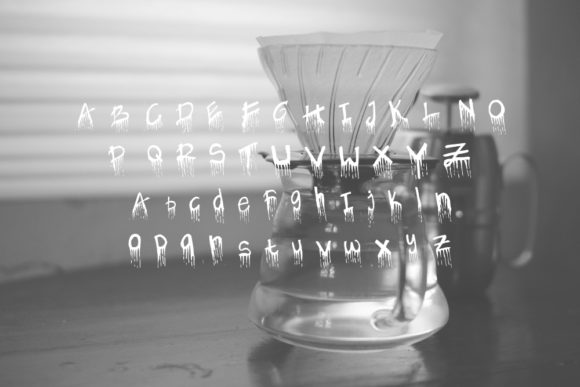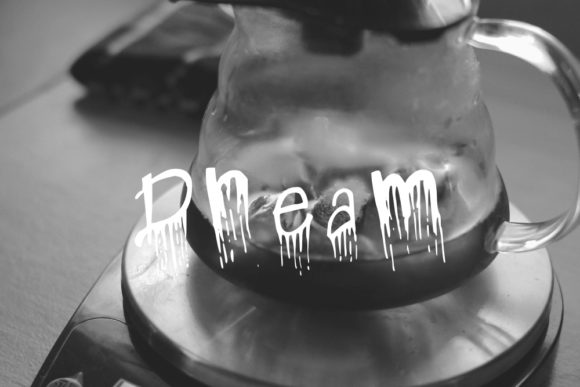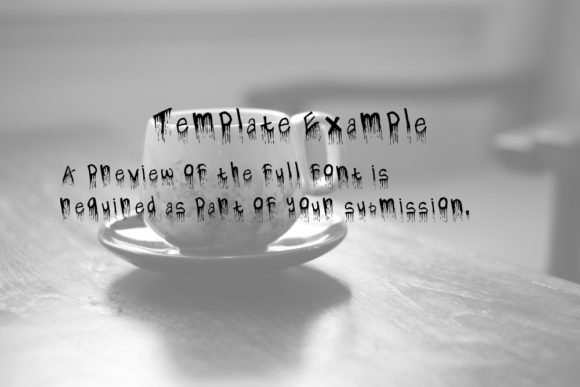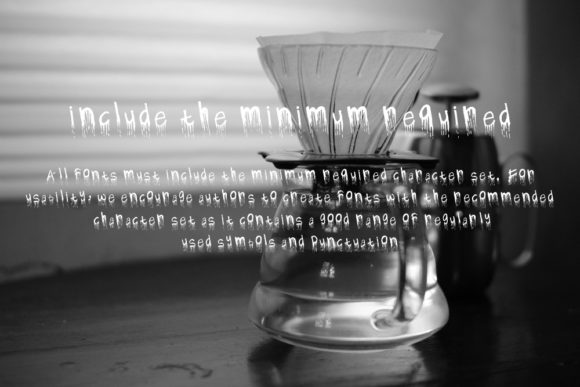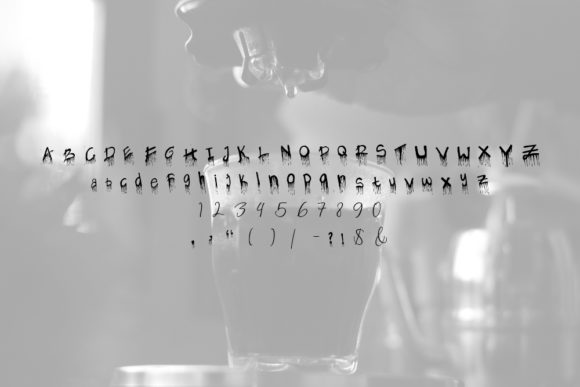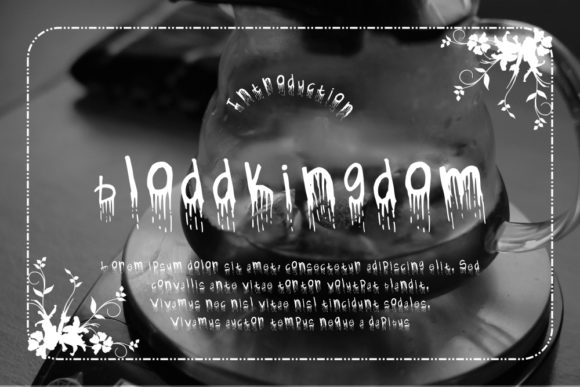
The Bloddkingdom Font: A Quirky Display Font to Elevate Your Designs
I’ll never forget the design project that led me to discover the Bloddkingdom font. I was working on a branding campaign for a new coffee shop, and I was struggling to find the perfect font to capture their quirky, eclectic vibe. That’s when I stumbled upon Bloddkingdom, and it instantly clicked. This unique display font has since become a staple in my design toolkit, and I’m excited to share its awesomeness with you! 😊
So, what makes Bloddkingdom so special? Let’s dive into the good stuff and a few quirks to keep in mind.
- ✨ Unique and quirky design that’s perfect for creative projects
- ✅ Highly legible, even at larger font sizes
- 🔥 Great for headlines, titles, and short text snippets
- 🌈 Works well with a wide range of color schemes and design styles
- 🤔 May not be the best choice for body text or longer paragraphs
- ⚠️ Some characters may not work well at very small font sizes
The story behind Bloddkingdom’s design is a fascinating one. According to the font’s creators, they drew inspiration from a mix of classic and modern design elements, with a dash of playfulness. The result is a font that’s both unique and versatile.
Q: What type of projects is Bloddkingdom best suited for?
A: Bloddkingdom is perfect for creative projects that require a unique, eye-catching font. It’s great for headlines, titles, and short text snippets in designs like posters, flyers, brochures, and social media graphics.
Q: Can I use Bloddkingdom for body text or longer paragraphs?
A: While Bloddkingdom is highly legible, it’s not the best choice for body text or longer paragraphs. Its quirky design and larger letterforms make it more suitable for headlines and titles.
Q: Does Bloddkingdom support OpenType features?
A: Yes, Bloddkingdom supports OpenType features, including glyphs and stylistic alternates. This allows you to add visual interest to your text and experiment with different design options.